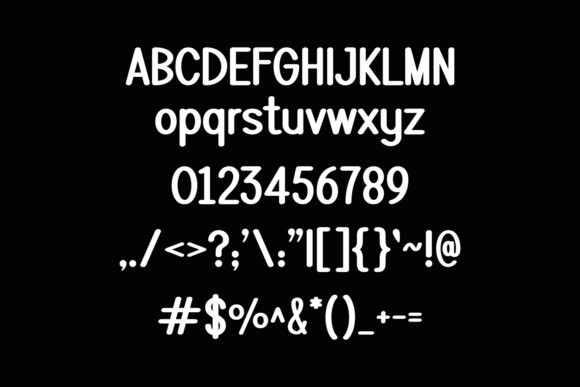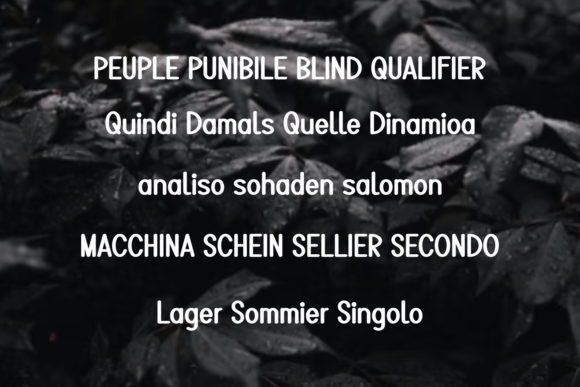
Arembo Font: The Ultimate Guide to this Cool and Unique Sans Serif Font
Arembo is a cool and unique sans serif font that has been making waves in the design community. With its incredibly distinct and timeless style, it’s no wonder that designers and crafters are falling in love with this font. In this article, we’ll take a closer look at the Arembo font, its features, and how you can use it to create spectacular designs.
What is Arembo Font?
Arembo is a sans serif font that boasts a modern and edgy aesthetic. Its unique design makes it stand out from other fonts, and its versatility allows it to be used in a wide range of design projects. Whether you’re creating a logo, brochure, or social media graphic, Arembo is sure to make a statement.
Key Features of Arembo Font
So, what makes Arembo font so special? Here are some of its key features:
• Unique and Distinctive Style: Arembo’s design is unlike any other font out there. Its bold lines and geometric shapes make it a standout in any design.
• Timeless Appeal: Unlike trendy fonts that quickly go out of style, Arembo’s classic design ensures that it will remain relevant for years to come.
• Versatility: Arembo can be used in a wide range of design projects, from logos and branding to posters and social media graphics.
• Ease of Use: Arembo is easy to read and works well in both digital and print formats.
How to Use Arembo Font in Your Designs
Now that we’ve covered the features of Arembo font, let’s talk about how you can use it in your designs. Here are some ideas to get you started:
• Logo Design: Arembo’s bold and geometric design makes it perfect for logos and branding projects.
• Posters and Flyers: Arembo’s unique style ensures that your posters and flyers will stand out from the crowd.
• Social Media Graphics: Use Arembo to create eye-catching social media graphics that will grab the attention of your followers.
• Brochures and Catalogs: Arembo’s clean and modern design makes it perfect for brochures and catalogs.
Tips for Pairing Arembo Font with Other Fonts
While Arembo is stunning on its own, it can also be paired with other fonts to create a unique and visually appealing design. Here are some tips for pairing Arembo with other fonts:
• Pair with a Serif Font: Pairing Arembo with a serif font can create a nice contrast and add visual interest to your design.
• Use a Script Font: Arembo pairs well with script fonts, which can add a touch of elegance and sophistication to your design.
• Experiment with Different Font Sizes: Don’t be afraid to experiment with different font sizes to create visual hierarchy and emphasis in your design.
In conclusion, Arembo font is a cool and unique sans serif font that is sure to make a statement in any design project. Its timeless style, versatility, and ease of use make it a favorite among designers and crafters. Whether you’re creating a logo, poster, or social media graphic, Arembo is a great choice. So why not give it a try and see how it can elevate your designs?